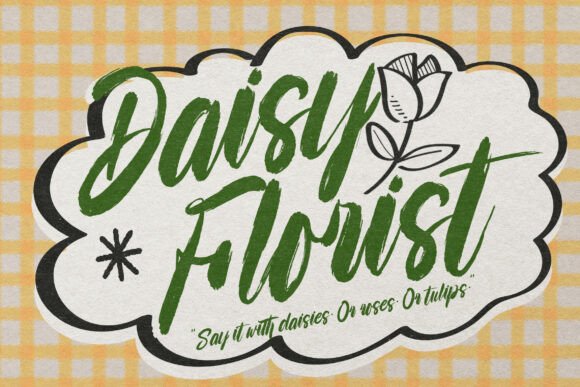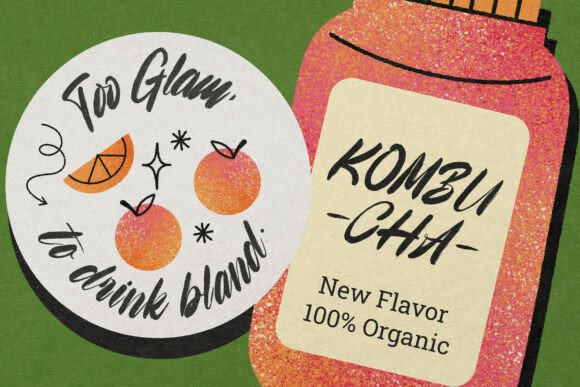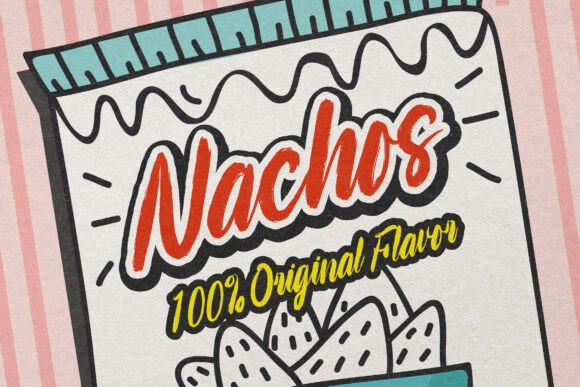
Introduction to Otter Garden Font
Have you ever been stuck trying to convey the perfect balance of elegance and playfulness in your design project, only to find that the right font is missing? For many creatives, this is a common challenge. That’s where the Otter Garden Font comes in – a modern, stylish handwritten font that effortlessly blends a clean aesthetic with a natural, personal touch.
Key Features of Otter Garden Font
- High-quality, hand-drawn design perfect for creative projects and design resources.
- Includes a wide range of characters, including uppercase and lowercase letters, numbers, and special symbols.
- Unique characteristics: Whimsical, playful, and elegant design elements, making it perfect for branding, typography, and editorial projects.
Honest Review: Otter Garden Font
As a designer, I’m always on the lookout for unique and high-quality fonts to enhance my creative projects. The Otter Garden Font caught my attention with its whimsical and playful style, making it a perfect addition to any design resource.
Here are some of the features that I love about the Otter Garden Font:
- ✨ High-quality design that’s perfect for creative projects.
However, I do have a few limitations to mention:
- ⚠️ Limited character set, which might not be ideal for longer texts.
- ⚠️ Not suitable for formal or corporate designs, as it’s a bit too playful for those styles.
Overall, I’m really impressed with the Otter Garden Font. Its unique design and high-quality aesthetic make it a great addition to any design resource. While it may have some limitations, it’s definitely worth checking out for your next creative project.
Otter Garden Font is a versatile design resource that can be used in a variety of creative projects. Some common use cases include:
- Designing presentations and reports
- Creating social media graphics and posts
- Developing branding and marketing materials
- Designing websites and digital products